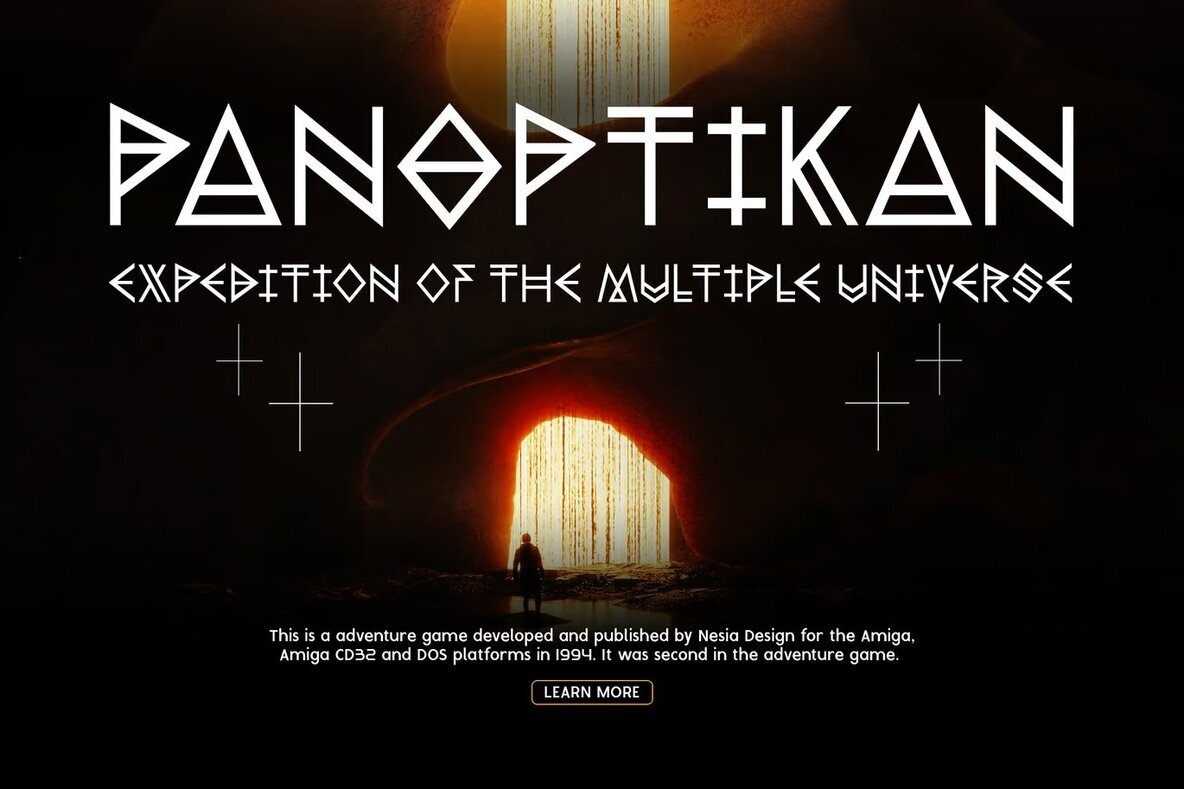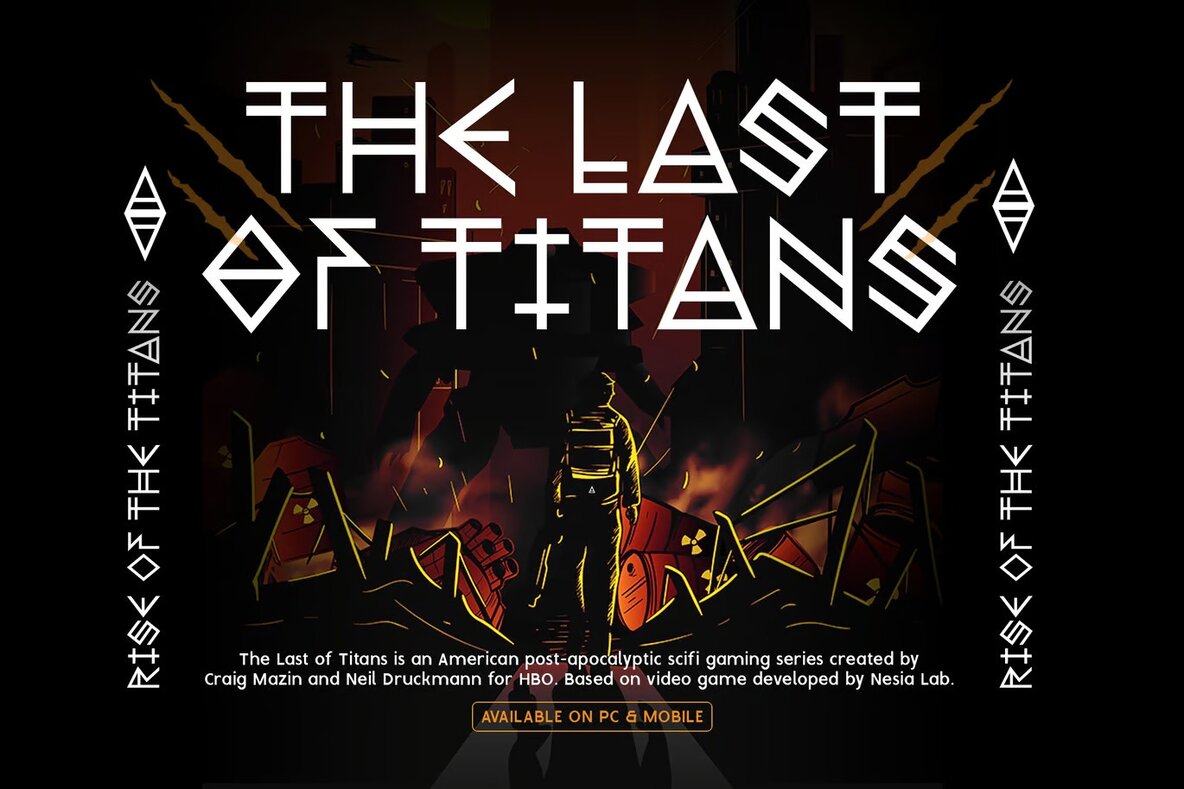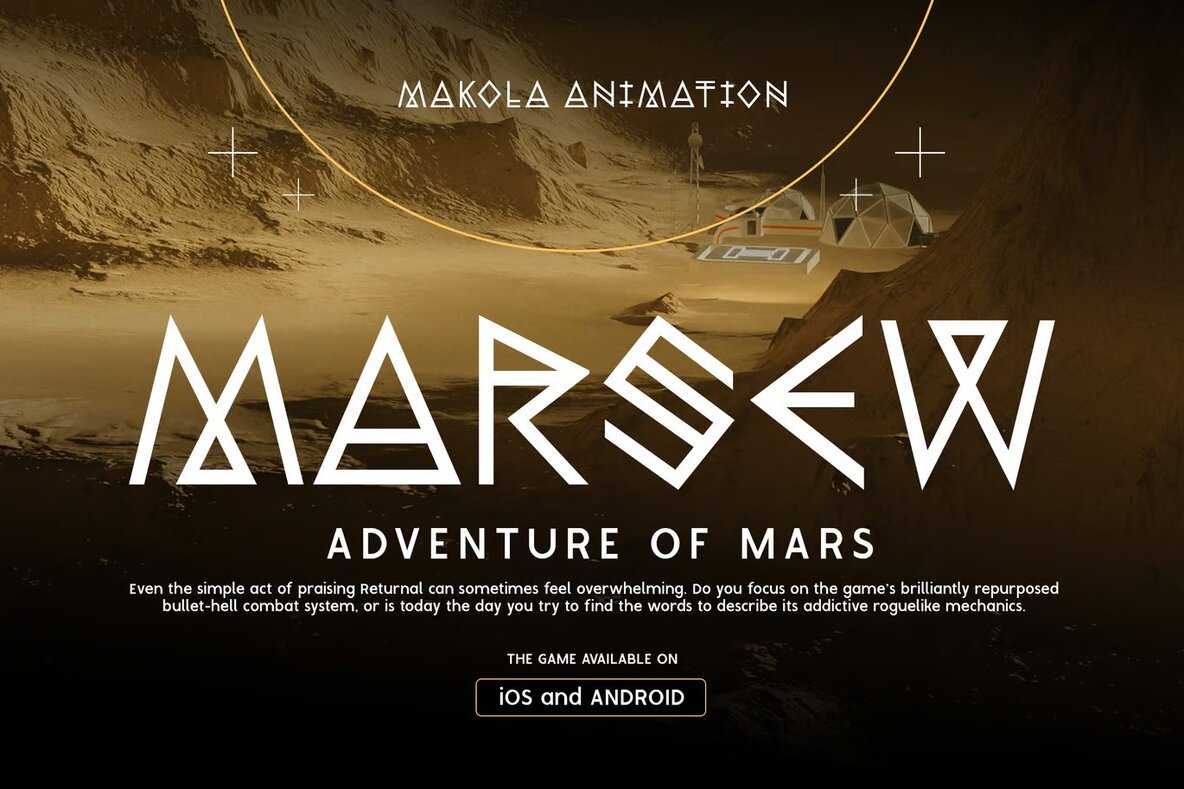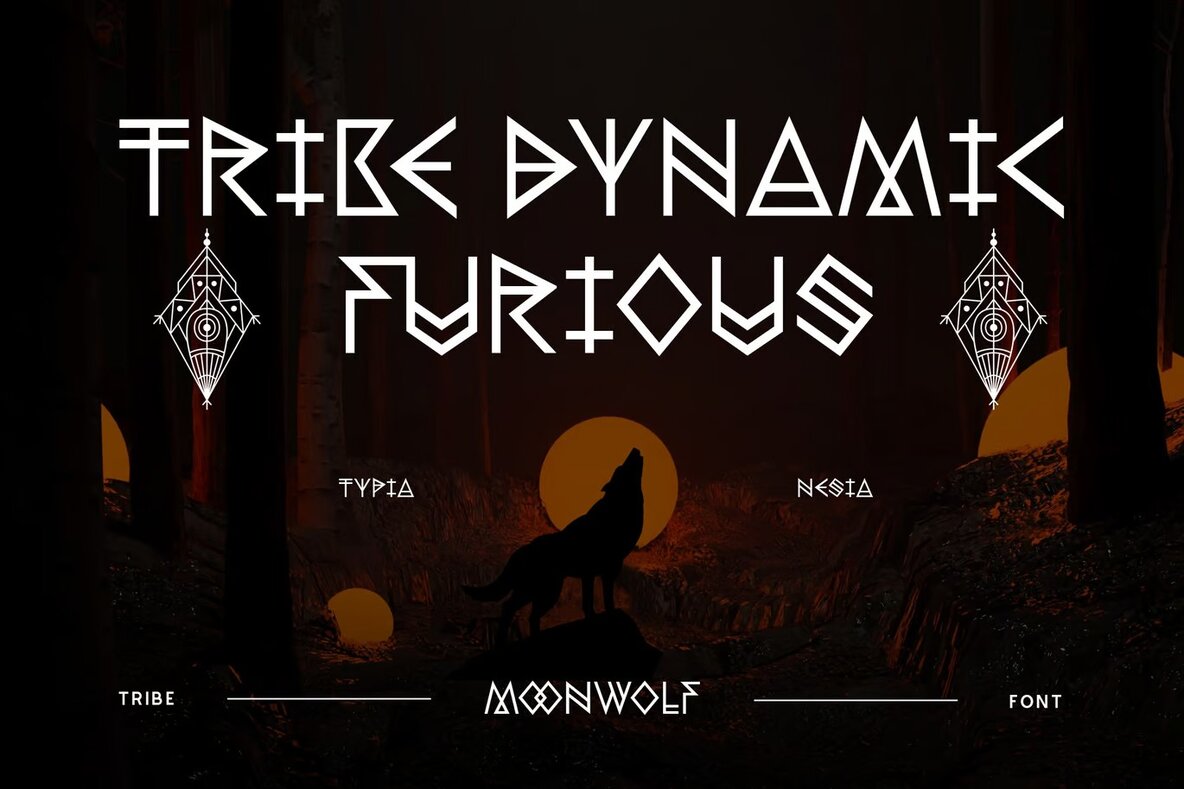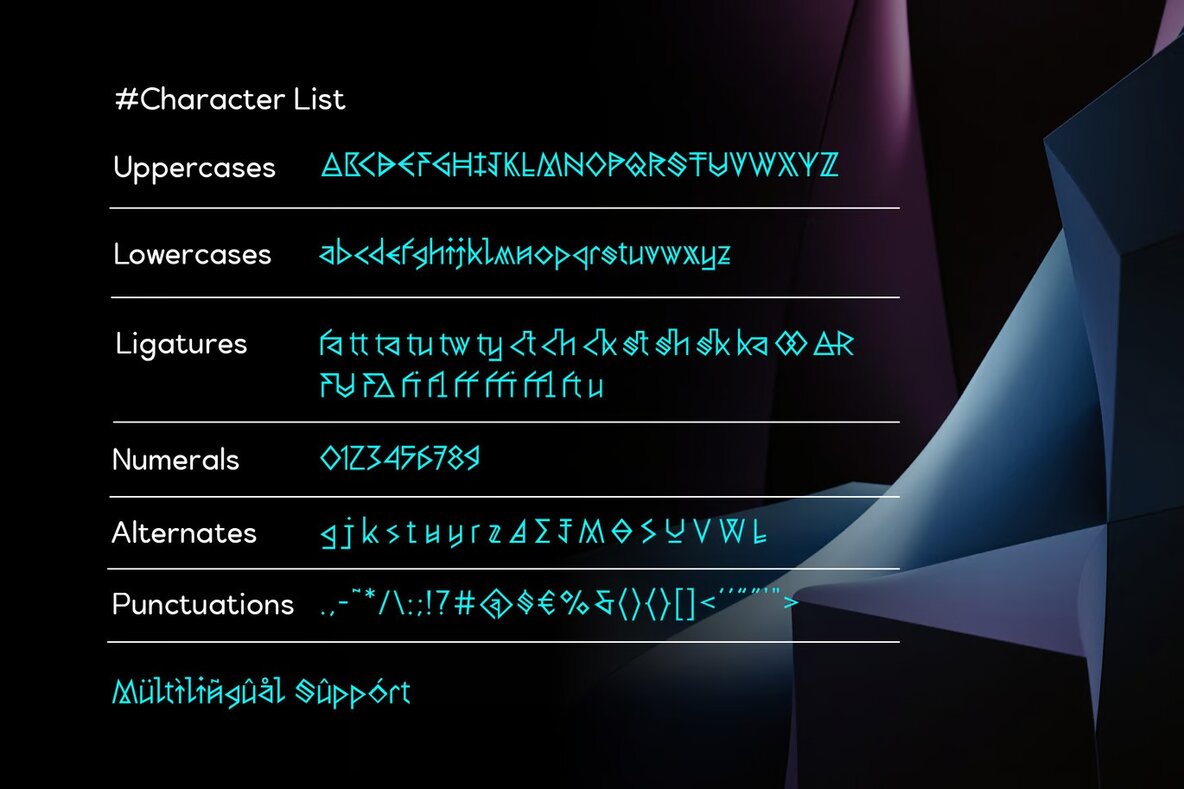
Moonwolf Font
Moonwolf Regular
The Moonwolf font is a bold and striking typeface that captures the essence of a highly advanced space tribe. It features a futuristic and primal design with sharp edges and sleek lines, evoking a sense of power and strength. The font includes unique and intricate details inspired by cosmic patterns and ancient tribal markings, creating a seamless flow between letters that enhances unity and harmony.
Ideal for projects requiring a futuristic, tribal, or sci-fi vibe, Moonwolf is perfect for sport technology applications and futuristic game displays. Its sleek and edgy design ensures that your work will stand out, making a strong visual impact and capturing the attention of your audience.